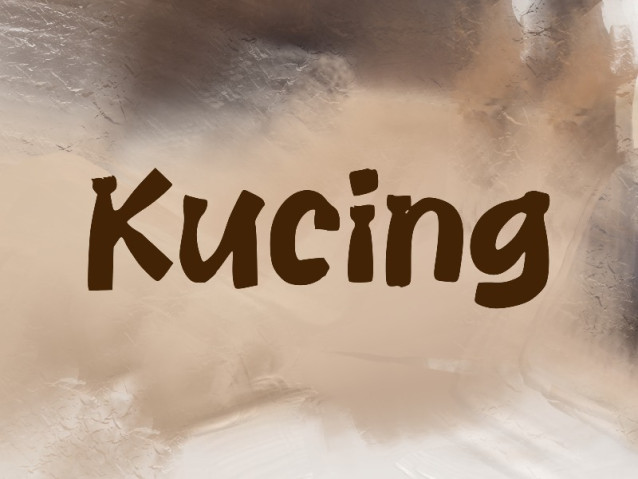
Kucing Font
Kucing Font is a simple and modern display font suitable for quotes, logos, headings, titles, and many more. Use it on any of your creative projects, and your designs will become outstanding!